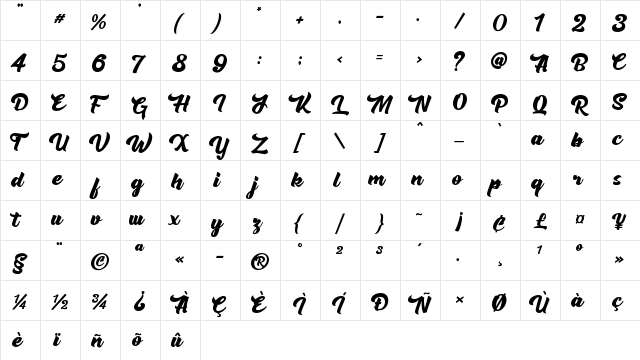
Rushing Nightshade DEMO Regular
| Foundry | Figuree Studio |
| Designer | Icep Anwar Fadhil |
Design Context for Rushing Nightshade DEMO Typeface
Rushing Nightshade DEMO is a composed and adaptable typeface that performs quietly and consistently across a wide range of design contexts.